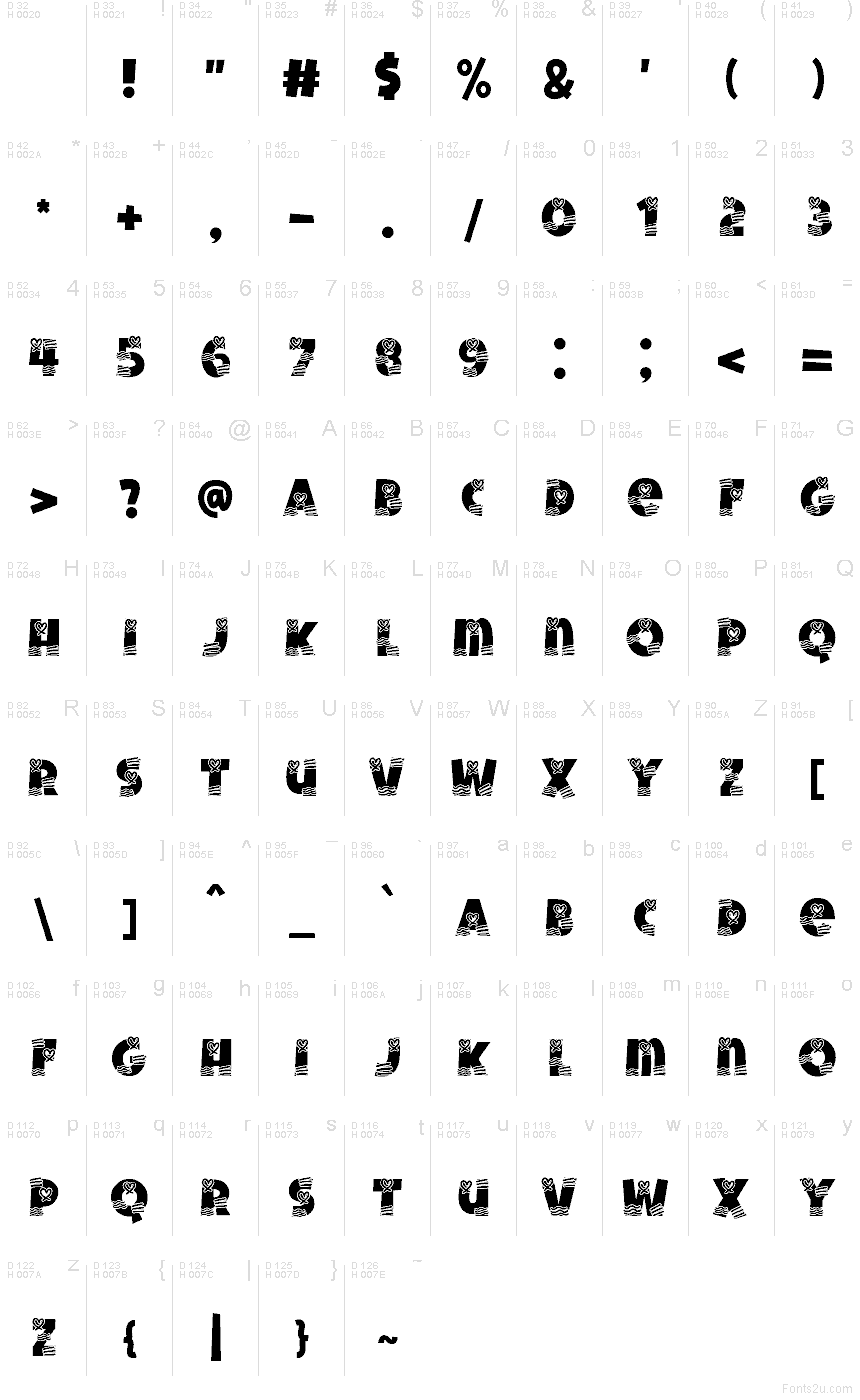
Handwriting Valentine
Handwriting Valentine font by DM Letter Studio - Dimas Prasetyo is a free decorative holiday typeface that looks like it was doodled across a notebook during a crush-filled study hall. Each chunky letter is packed with tiny hearts, dots, and playful doodles that create a busy, textured pattern when set in a line. The result feels sweet, handmade, and slightly chaotic in the best way—like a collage of candy wrappers and love notes all mashed into one inky, black headline.
Using Handwriting Valentine, your text instantly turns into artwork, so it shines on Valentine’s cards, party invitations, classroom printables, posters, stickers, and social media graphics. This free font works best big and bold where all the cute inner details can breathe; pair it with a simple sans-serif for body copy so the message stays readable while the titles do the flirting.